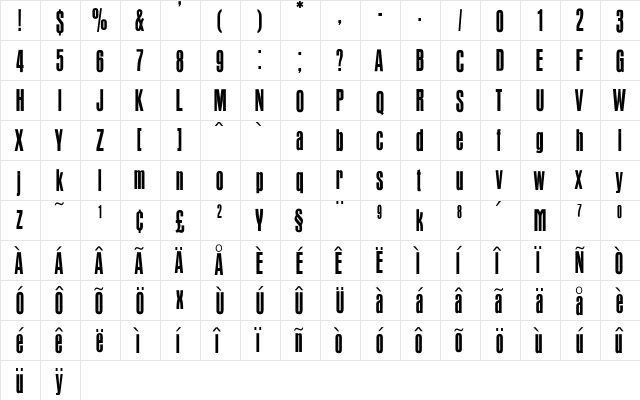
OPTIAuroraCondensed Medium
Design Context for OPTIAuroraCondensed Typeface
OPTIAuroraCondensed takes a measured approach to typography — its balanced proportions and neutral character make it a reliable workhorse for both digital and print work. Its narrow stance lets it pack a punch even in space-constrained designs.
Pro Tip: Use OPTIAuroraCondensed in both headline and body roles to test its range before committing to a single application.